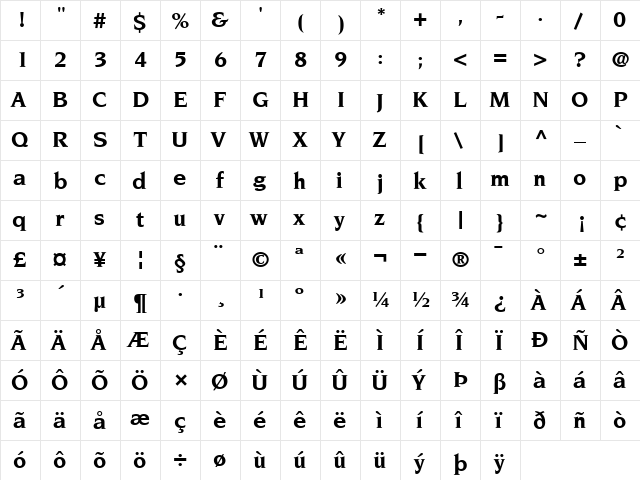
ITCNovarese Bold
Design Context for ITCNovarese Typeface
ITCNovarese is a composed and adaptable typeface that performs quietly and consistently across a wide range of design contexts. The heavy weight commands attention and anchors typographic hierarchies.
Pro Tip: Use ITCNovarese in both headline and body roles to test its range before committing to a single application.